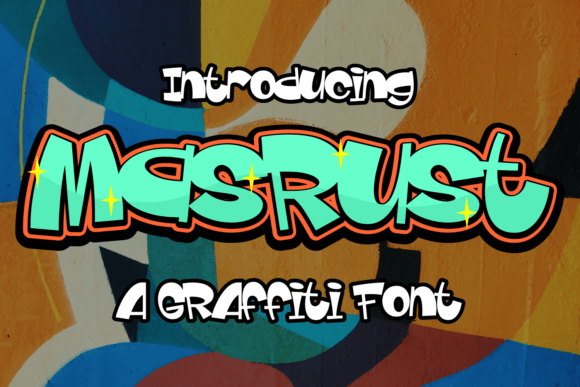
Unleash Your Urban Style with Masrust Font - The Graffiti Masterpiece for T-shirt Designs
In a world where self-expression reigns supreme, Masrust Font emerges as a defiant and bold display font, captivating the rebellious spirit of street art. Inspired by the vibrant energy of city walls, this remarkable font embodies the essence of graffiti culture, ready to transform your T-shirt designs into urban masterpieces.
With its irregular shapes and exaggerated proportions, Masrust Font breaks the boundaries of conventional typography. Each letter is a testament to the rebellious nature of street art, demanding attention and igniting a spark of creativity in every design. Whether you're crafting digital masterpieces, creating thought-provoking posters, or expressing yourself through artwork, Masrust Font is your ultimate tool for capturing the urban edge.
Imagine your T-shirt designs pulsating with the raw energy of street art, where every letter dances with individuality and bursts with urban flair. Masrust Font is more than just a font; it's a statement of rebellion, a celebration of creativity, and a testament to the indomitable spirit of self-expression that defines the world of street art.
Embrace the urban revolution with Masrust Font and witness the transformation of your T-shirt designs into captivating works of art. Let your designs resonate with the rebellious spirit of graffiti, sparking conversations and igniting a passion for self-expression in every individual who sees them.